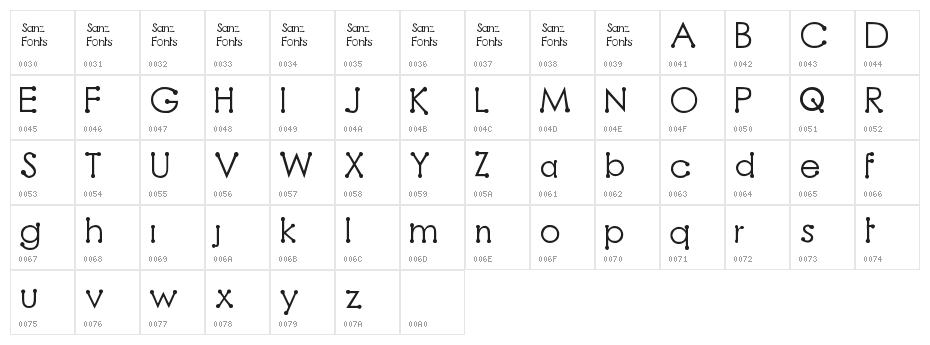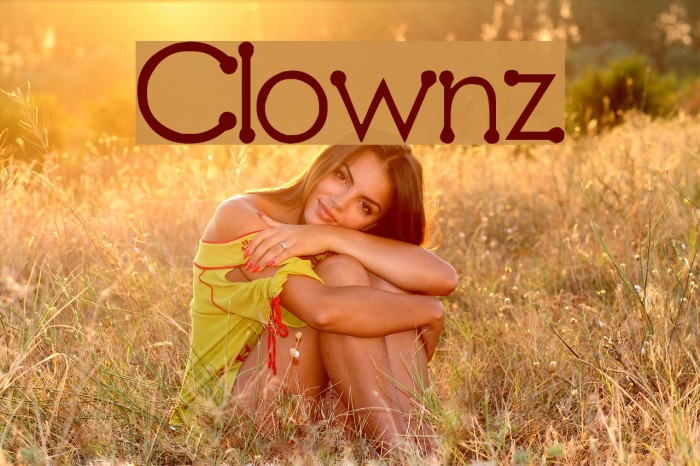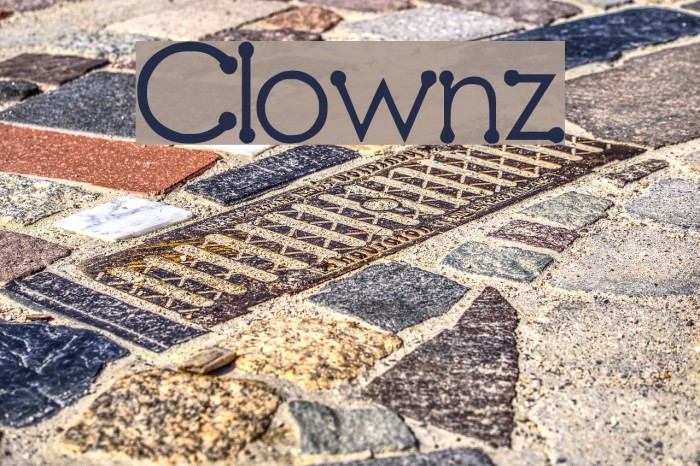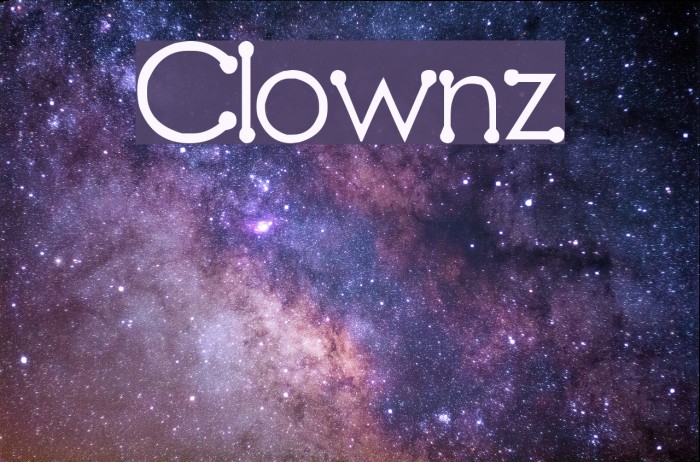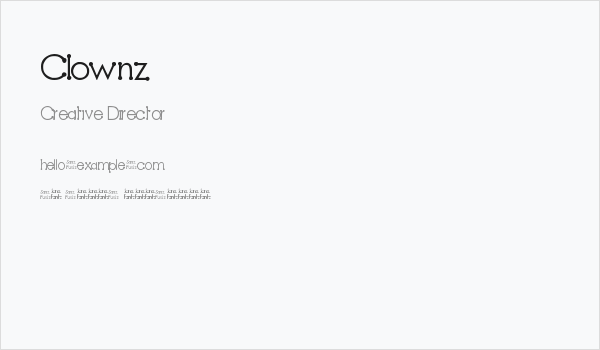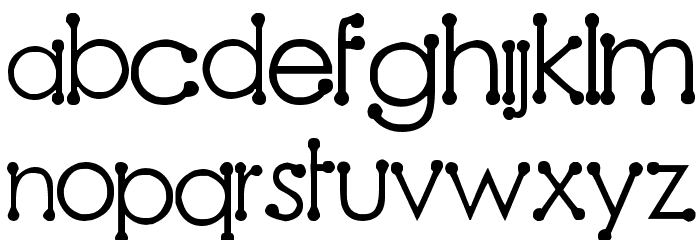
Clownz Font
Clownz Description
This playful and whimsical font features rounded terminals and a unique dot embellishment at the end of each stroke, giving it a fun and quirky appearance. The characters are evenly spaced with a consistent stroke width, creating a harmonious and balanced look. The uppercase and lowercase letters maintain a uniform style, enhancing readability while adding a touch of creativity. The font's design is ideal for projects that require a lighthearted and approachable feel, making it suitable for children's books, playful branding, or creative posters.
| Proposed Projects | Children's books, playful branding, creative posters, party invitations. |